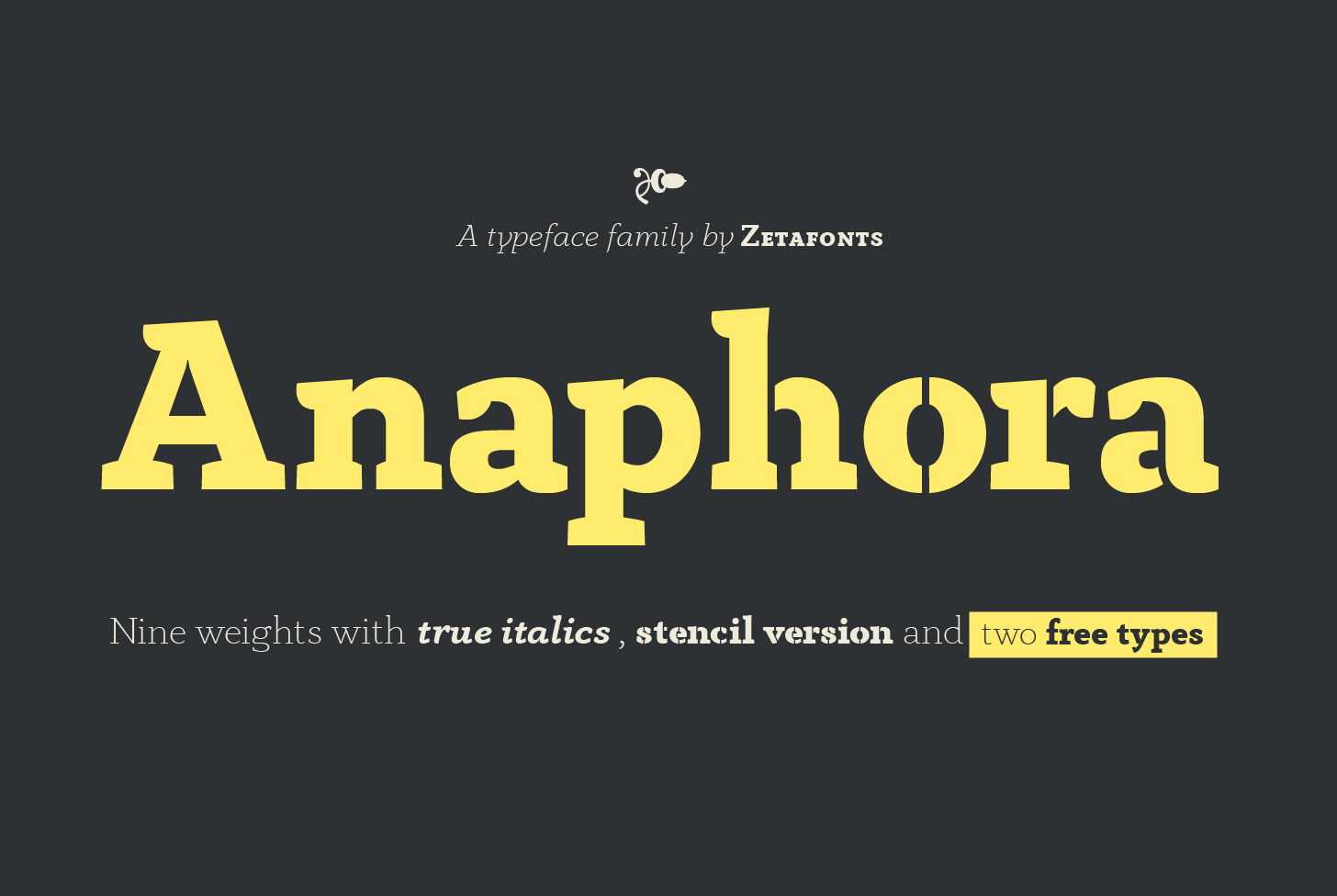
Anaphora Font Family
Introducing to you a serif typeface family. Introducing Anaphora! Anaphora is a contemporary serif typeface designed by Francesco Canovaro with Cosimo Lorenzo Pancini and Andrea Tartarelli. It features a wedge serif design with nine weights from thin to fat, each with true italics style, for a full range of editorial and advertising uses. Its wide counters and low x-height make it pleasant and readable at text sizes while the uncommon shapes make it strong and recognizable when used in display sizes.